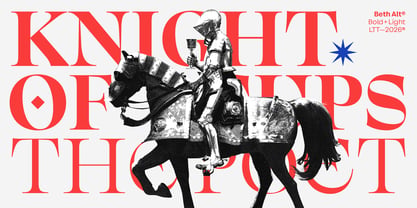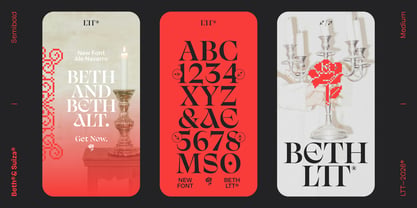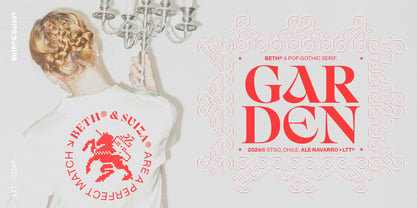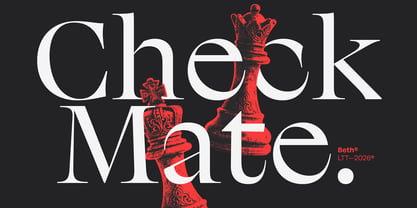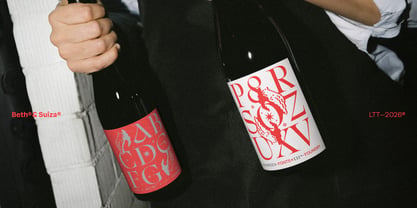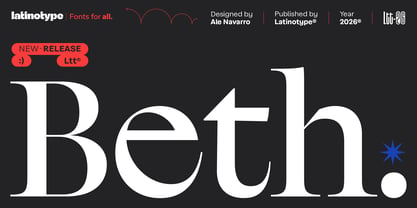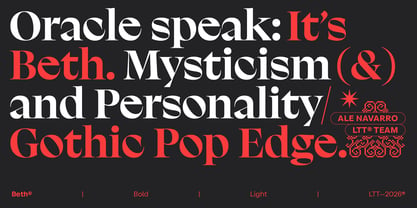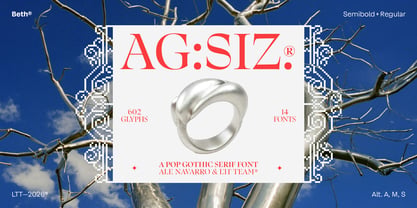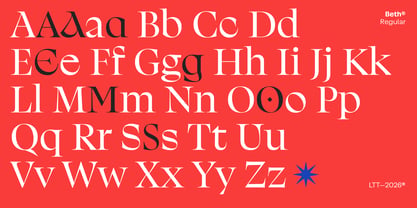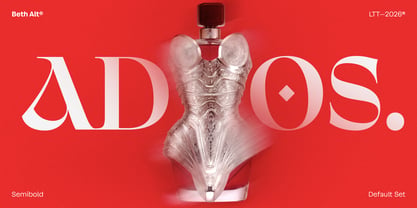
Beth
The Beth Font Family was designed by Latinotype Team, Ale Navarro and published by Latinotype. Beth contains 14 styles and family package options. More about this family
Beth takes its roots from early-twentieth-century English shopfront and storefront lettering — a tradition of lettering designed to stop people in their tracks. Its uppercase draws from Neoclassical type with humanist terminals and convex strokes pulled from hand-painted signage, giving each capital a brightness and precision that feels both historic and immediate. The lowercase follows the calligraphic model of Edward Johnston's Foundational Hand: the single-story 'a' has no traditional terminal, the curves modulate close to 45°, and the 's' is, in Ale Navarro's own words, a poem.
The drawing carries the weight of engraving — particularly the work of Gustave Doré and William Blake. Their influence lives in Beth's thin strokes and the richness of its contrast: a typeface that holds light and shadow the way a copper plate does. That duality is central to its character. Beth is at once luminous and dark, delicate in its finer weights and forceful in its heavier ones — a formal tension that makes it equally suited to a luxury fragrance label and a concert poster.
With 7 weights from Light to Black — each available in a standard and alternate character set — plus 594 glyphs and discretionary ligatures, Beth offers expressive range without losing the singular identity that defines it. A pop gothic serif for brands and projects that want to be remembered.